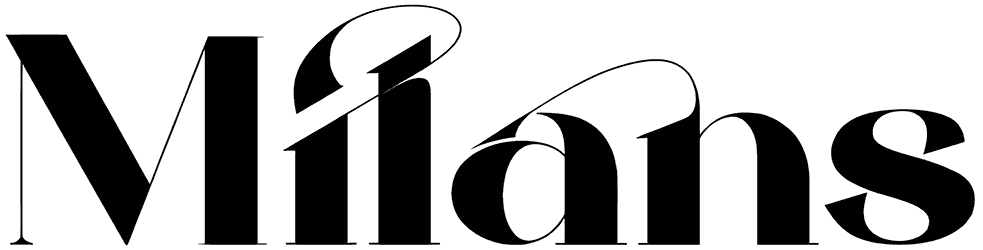
Milans Font
Not only formal designs but also informal ones will become more charming if you use a unique retro font like this one. This classic font has a delicate and fashionable visual that could be perfect for a fashion event flyer or a grand opening invitation card. Try the Milans for your new layout and be impressive.